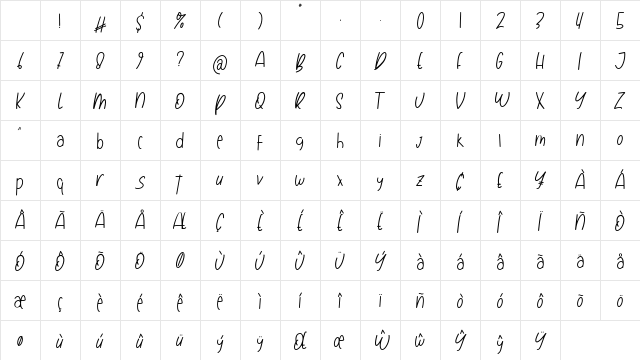
Complete Swit Pruit Regular glyph index. Displaying only characters natively supported by Swit Pruit Regular font.
Swit Pruit is a composed and adaptable typeface that performs quietly and consistently across a wide range of design contexts.